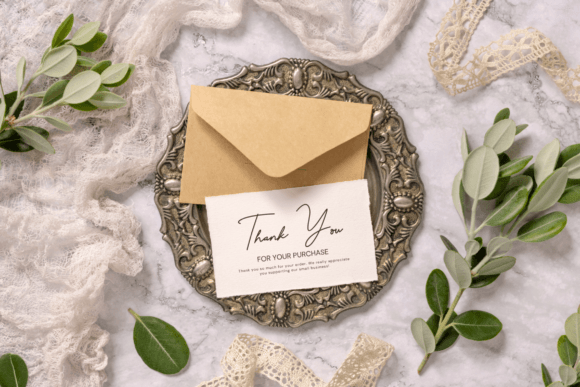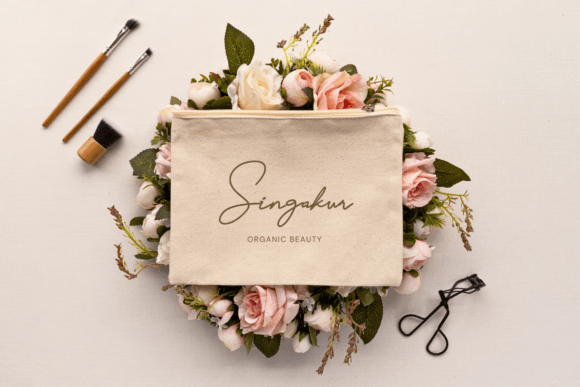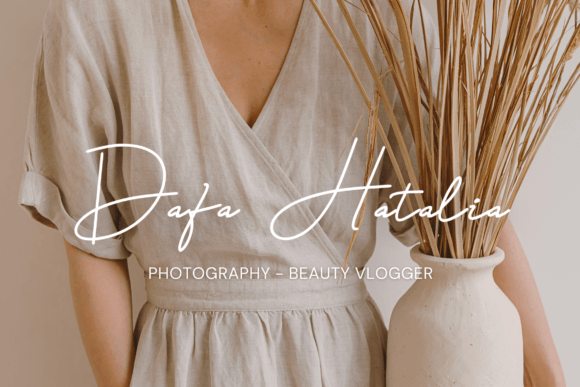
Introduction to Singakur Font
Singakur is a fun and handwritten signature font that adds a playful twist to any design.
With its whimsical letterforms and unique charm, it’s perfect for eye-catching headlines, vibrant posters, and playful branding projects Infuse your creations with joy and personality with Singakur.
Why Choose Singakur Font?
Singakur Font offers exceptional quality and versatility, making it a valuable addition to your design toolkit. Whether you’re creating for personal projects or commercial use, Singakur Font delivers professional results.